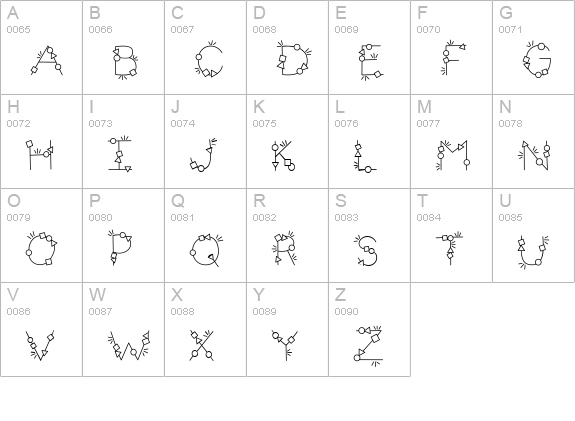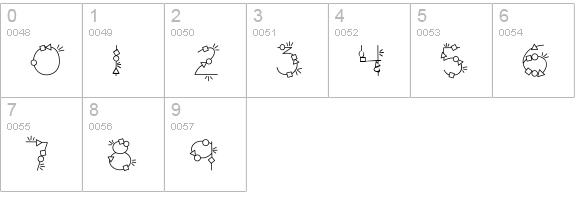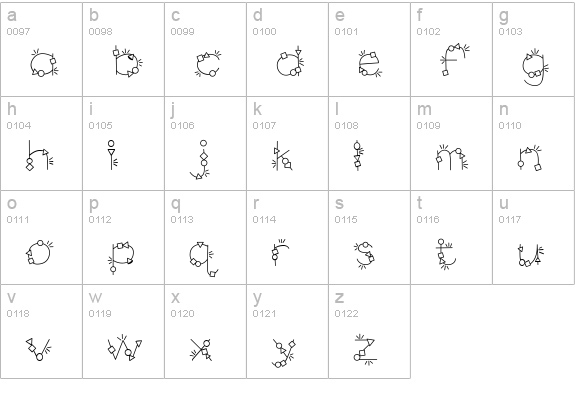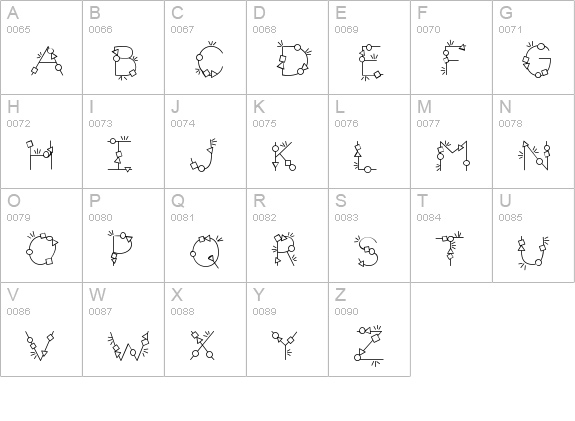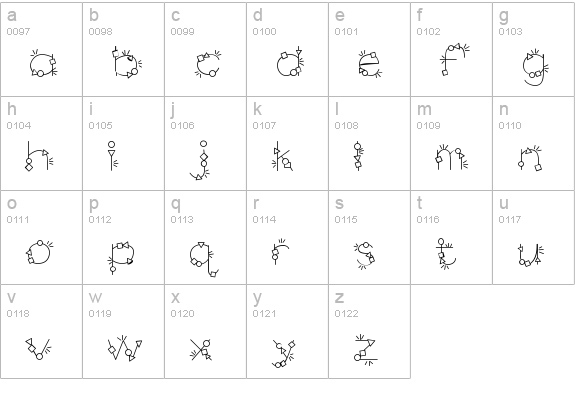
CK Geometric Font Details
Introducing CK Geometric font, a sleek and modern typeface designed to bring a touch of sophistication to your projects. This versatile font features clean lines and geometric shapes that create a contemporary look suitable for a wide range of design applications. CK Geometric font is not only visually appealing but also highly functional, making it perfect for branding, advertising, web design, and more. Its bold and striking appearance will grab the attention of your audience and make a lasting impression. What's even better is that CK Geometric font is available for free download at FontsMarket.com. You can easily access this stylish font and incorporate it into your creative projects without any cost. Don't miss out on the opportunity to enhance your designs with this elegant and modern typeface. Download CK Geometric font today and take your work to the next level.